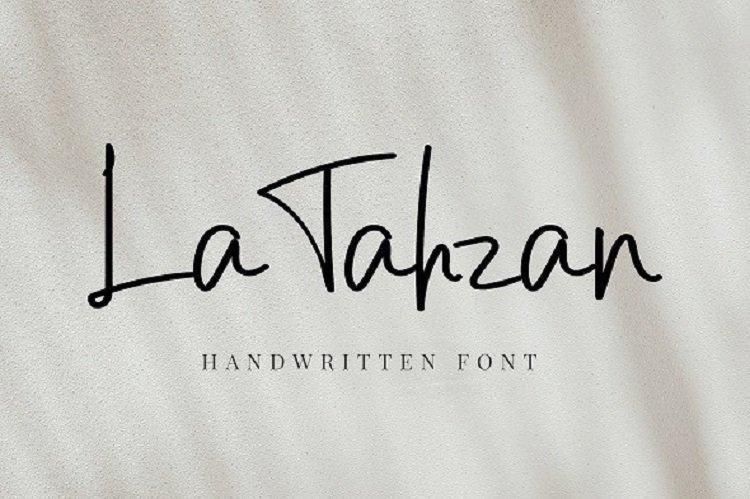
La Tahzan Font
La Tahzan Font is a messy, feminine, carefree script that is perfect for logos, posters, signage.
So beautiful on invitation like greeting cards, branding materials, business cards, quotes, posters, and more!